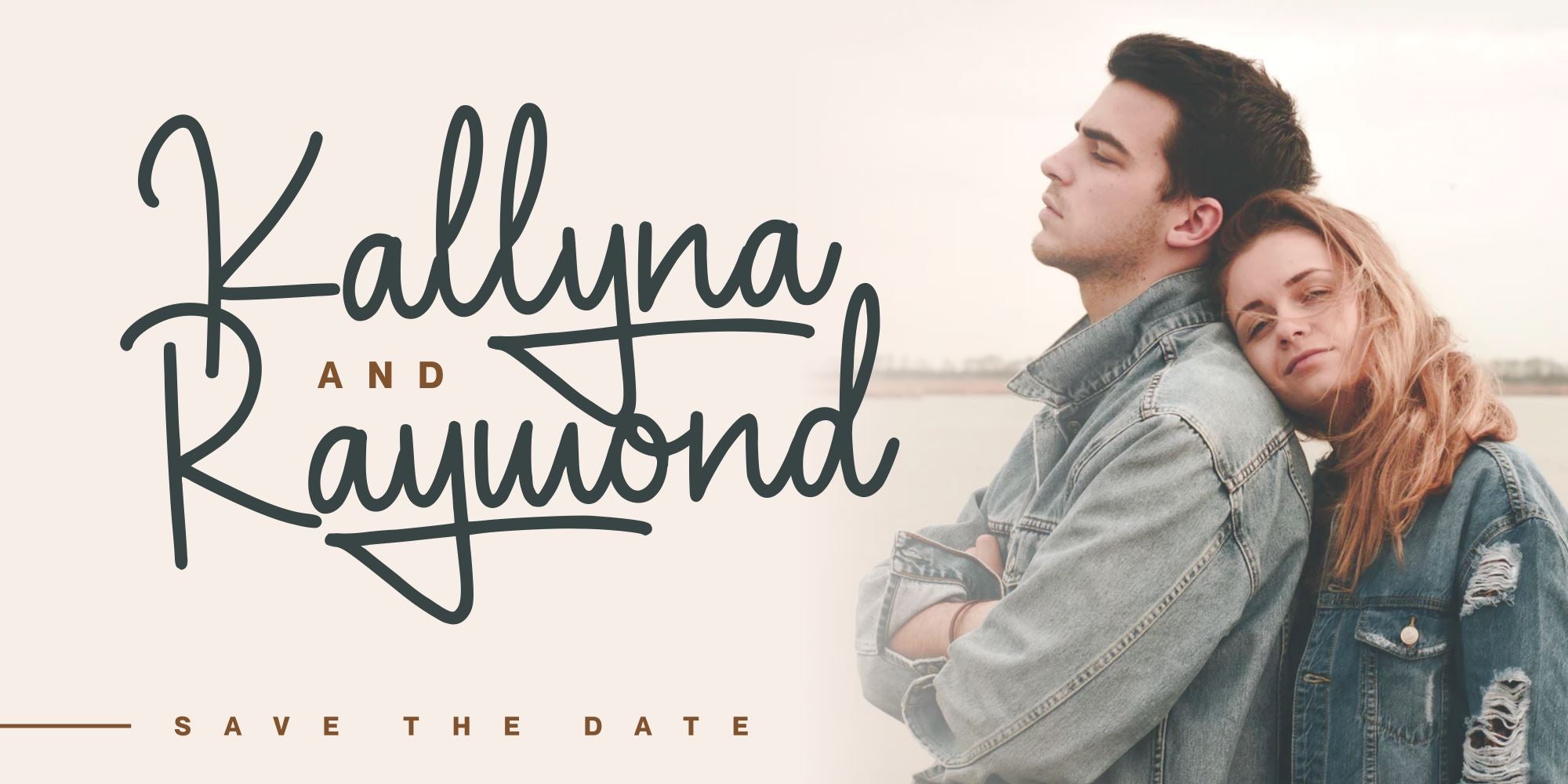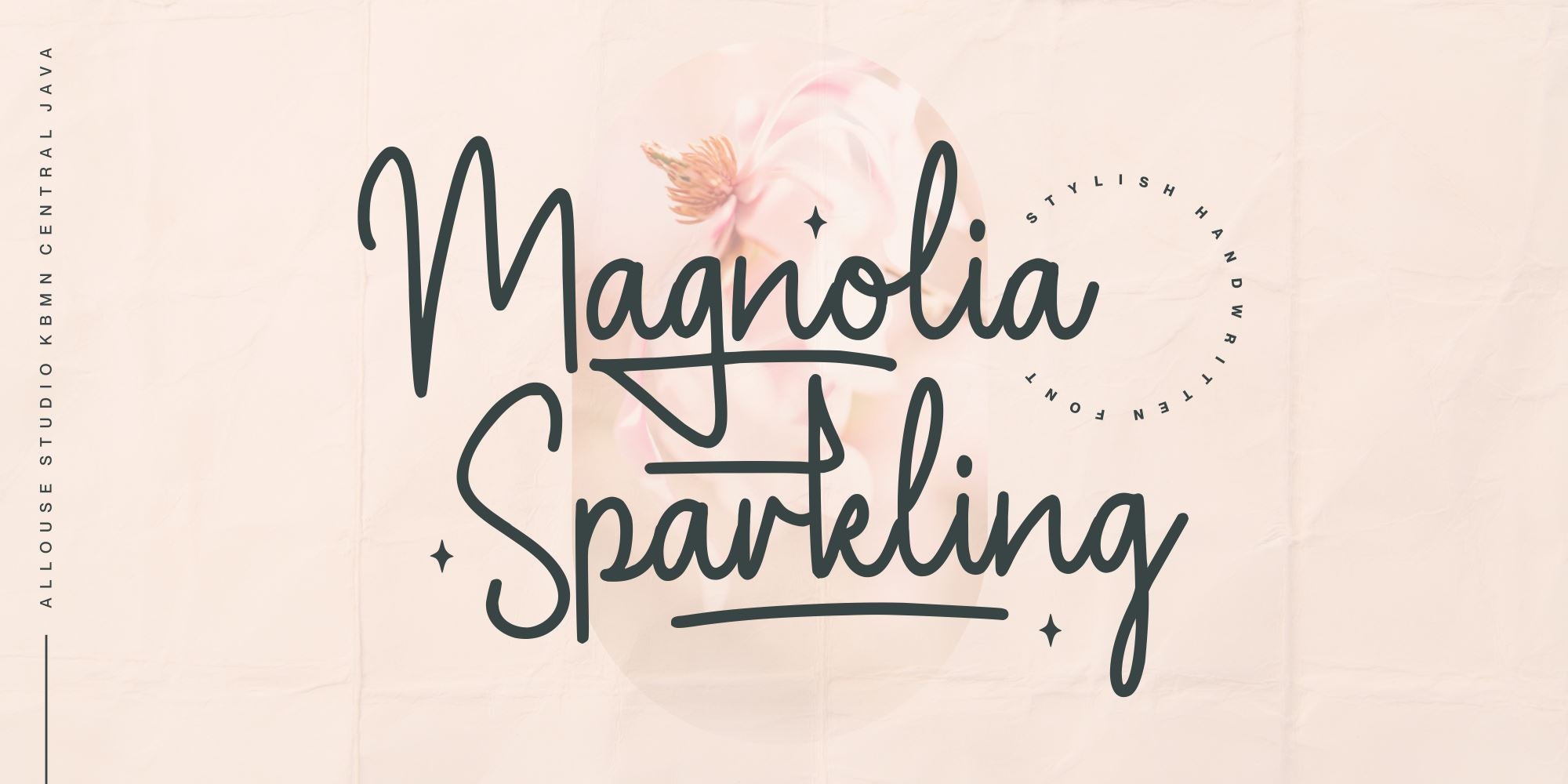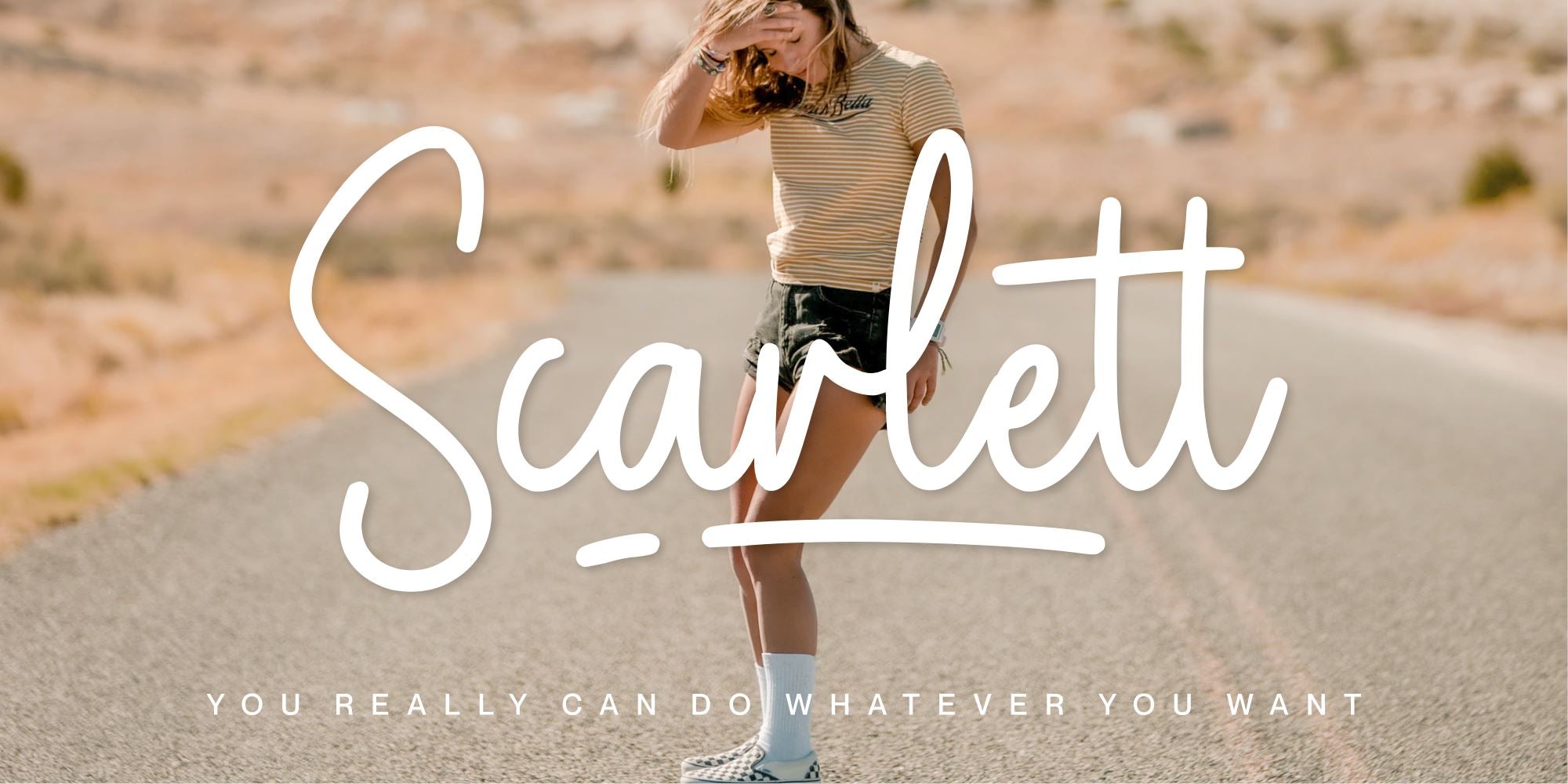
Proudly Presenting, Magnolia Sparkling is a Stylish Handwritten Font. Magnolia Sparkling is perfect for any titles, logo, product packaging, branding project, megazine, social media, wedding, or just used to express words above the background. Magnolia Sparkling also come with, stylistic style, alternates, underline style and Multi-Lingual Support. We highly recommend using a program that supports OpenType features and Glyphs panels like many of Adobe apps and Corel Draw, so you can see and access all Glyph variations. Enjoy the font, feel free to comment or feedback, send me PM or email. Thank You!